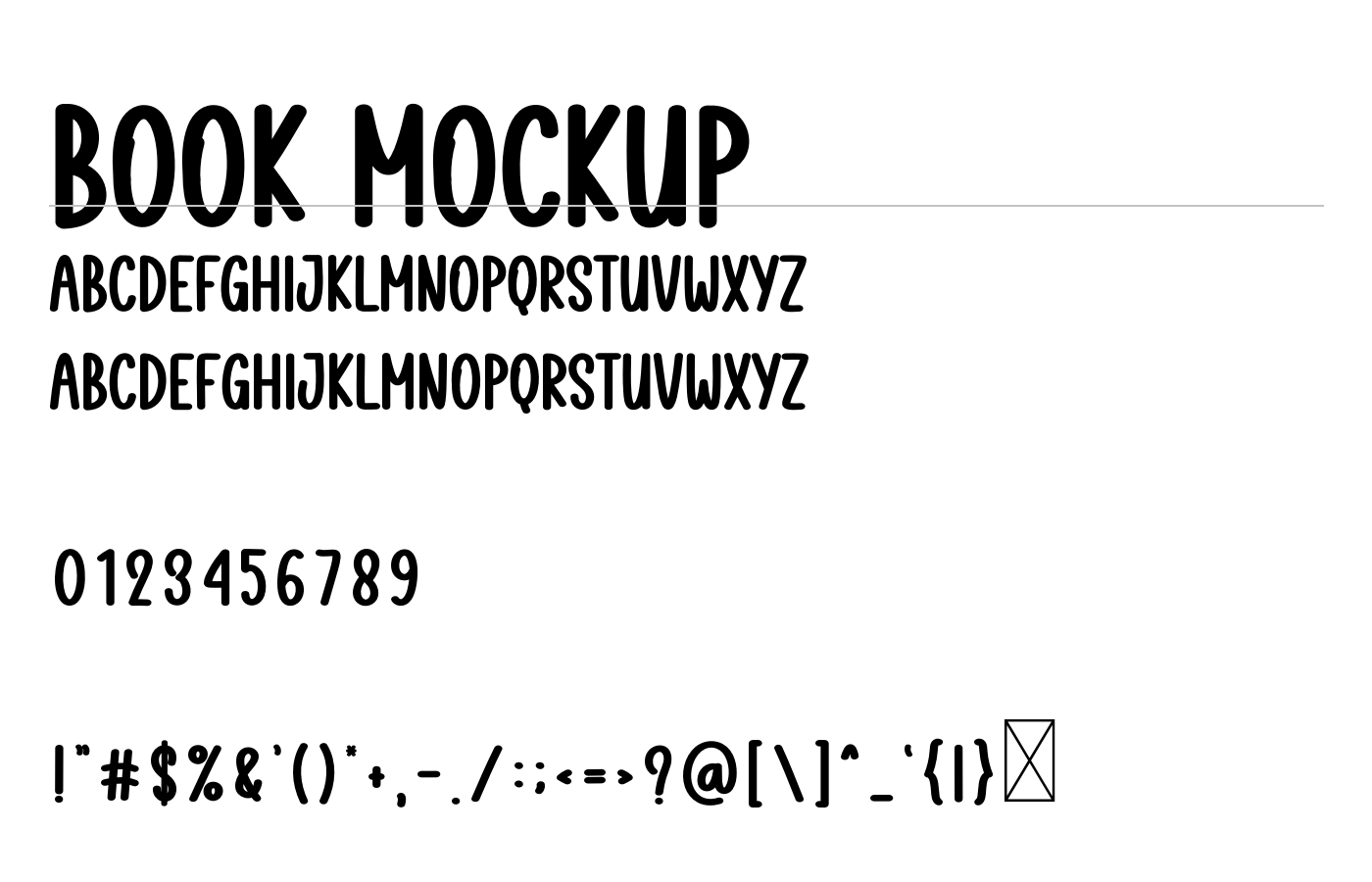
Book Mockup Font is a playful and casual handwritten sans serif typeface with a tall, narrow structure and uniform stroke weight. Its rounded, slightly irregular letterforms give it a friendly and approachable feel, making it ideal for creative projects, children’s books, and informal branding that seeks to convey warmth and personality. This font works well in headlines and display uses where a fun and charming vibe is desired.
Book Mockup Font
About Book Mockup Font
| Font family | Book Mockup Font |